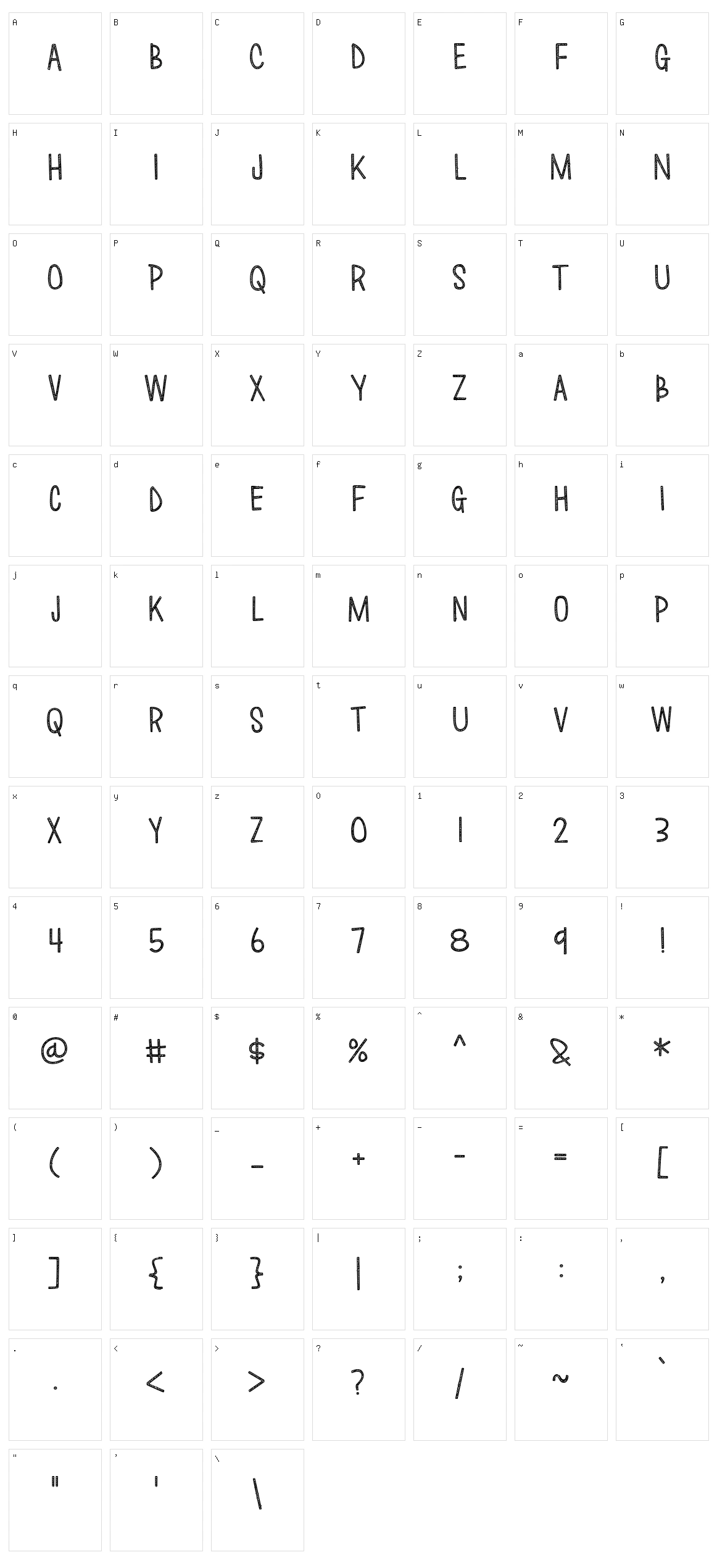
The free font Love Monster Sketched is carefully designed by Brittney Murphy Design, showcasing a thoughtful balance of creativity and usability and falls under the Cartoon font style. When you download the ZIP file, it contains only 579.66 KB of font files, making it lightweight and quick to download. Please review the license details below to understand permitted usage and distribution rights. If license information is not available, we recommend using this font for personal projects only or contacting the author directly for commercial usage permissions.